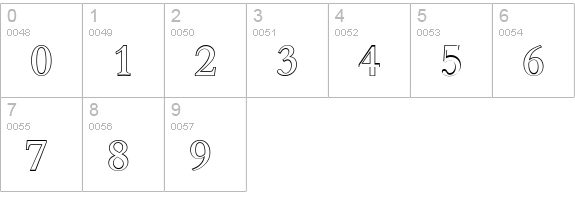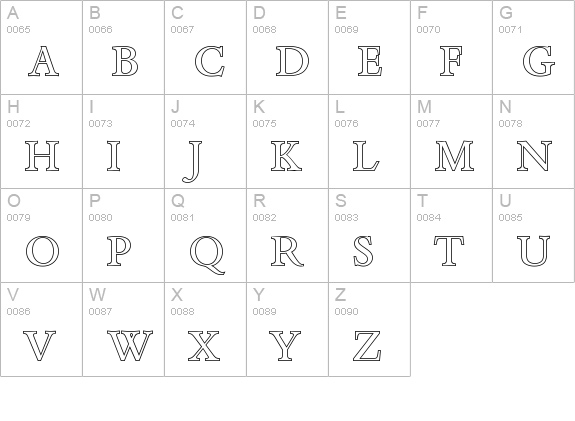
BernsteinOutline-Regular Font Details
BernsteinOutline-Regular is the standard, neutral variant in the BernsteinOutline typeface family \xE2\x80\x94 well suited to general body text, paragraphs, and standard typographic work.
BernsteinOutline-Regular is a modern and stylish font that exudes sophistication and elegance. This typeface features clean lines and sharp edges, making it perfect for a wide range of design projects. Whether you're creating a business presentation, designing a logo, or working on a website, BernsteinOutline-Regular will add a touch of class to your work. Best of all, this font is available for free download at FontsMarket.com. You can easily access this versatile typeface and enhance your projects with its timeless appeal. Don't miss out on the opportunity to elevate your designs with BernsteinOutline-Regular - get your free copy today!